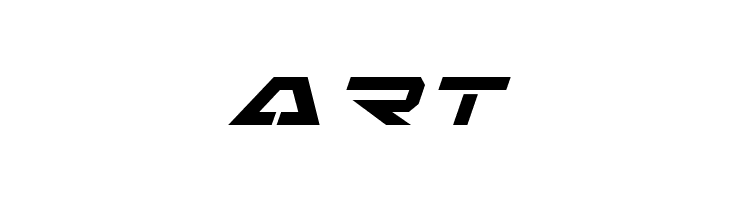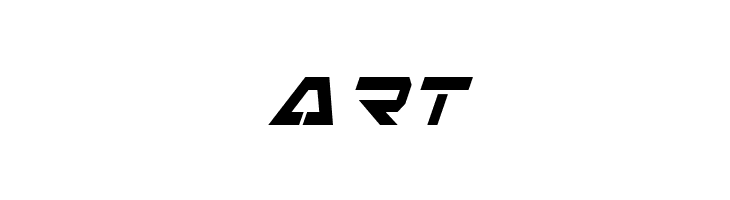
A rugged, hand-carved font with a wild, untamed aesthetic.
A bold, playful font with geometric elements and dynamic character shapes.
Ornate woodcut-style dingbat illustrations for each character.
A decorative font featuring whimsical, hand-drawn illustrations with a woodcut style.
A bold, handwritten font with a dynamic and energetic style.
A bold, outlined, and playful font with a handwritten style.
A playful, informal font with rounded, consistent strokes and a handwritten feel.
A collection of vintage-style illustrative characters depicting literary themes.
A modern, geometric font with rounded edges and consistent stroke width.
A collection of intricate, abstract symbols with minimalistic numerals.
A display font made up of illustrated human faces for each character.
A highly stylized, abstract font with sharp, angular lines and a chaotic aesthetic.
A futuristic, geometric font with rounded edges and consistent stroke width.
A bold, textured font with a hand-drawn, artistic style.
A bold, jagged font with sharp, angular edges for a dynamic look.
A futuristic, geometric font with bold, angular letterforms.
A futuristic, geometric font with sharp angles and clean lines.
A decorative font with festive holiday-themed illustrations replacing traditional characters.
Cartoon character illustrations replace standard letterforms for a whimsical effect.
Cartoonish, space-themed decorative font with playful illustrations.
A festive, decorative font with Christmas tree and star motifs.
A bold, flame-inspired font with dramatic, dynamic characters.
A modern, clean sans-serif font with a slightly condensed style.
A sleek, extra-light sans-serif font with a modern and condensed design.
A modern, extra-light sans-serif font with a narrow, elongated style.
A thin, modern sans-serif font with a sleek and elegant design.
A dynamic collection of sports silhouettes and bold, 3D-styled numbers.
A decorative, pictorial font based on Egyptian hieroglyphics.
A classic serif font with elegant and refined characteristics.
Cartoonish, music-themed illustrative display font.
A playful, dynamic script font with smooth, flowing lines and consistent stroke thickness.